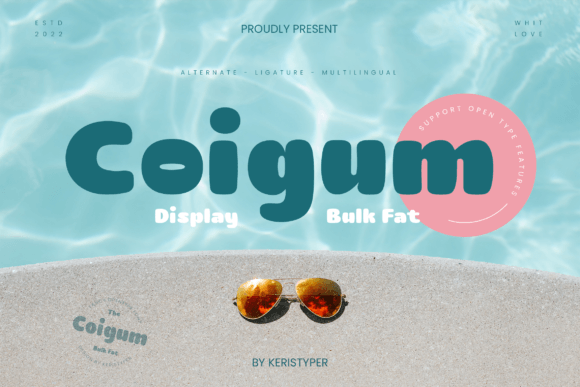
Are you looking for a powerful font that will make your designs stand out from the crowd? Look no further than Coigum Font! This modern display font, created by Keristyper, is the perfect choice for anyone looking to create attention-grabbing headlines, titles, and logos.
With its bold and fat lettering style, Coigum is sure to capture the viewer's attention and make a statement. It's the best font for big numbers, making it ideal for projects that require a strong and impactful appearance, such as posters, advertisements, packaging, and branding materials.
Coigum's unique and modern design sets it apart from other display fonts, making it a great choice for designers who want to add a touch of boldness and energy to their projects. Whether you're a seasoned designer or just starting out, Coigum is a must-have for your font collection.
But Coigum isn't just about making a visual impact. It's also incredibly versatile and easy to work with. Its clean lines and consistent spacing make it perfect for both digital and print designs, and its wide range of characters ensures that it can be used for any language or typography project.